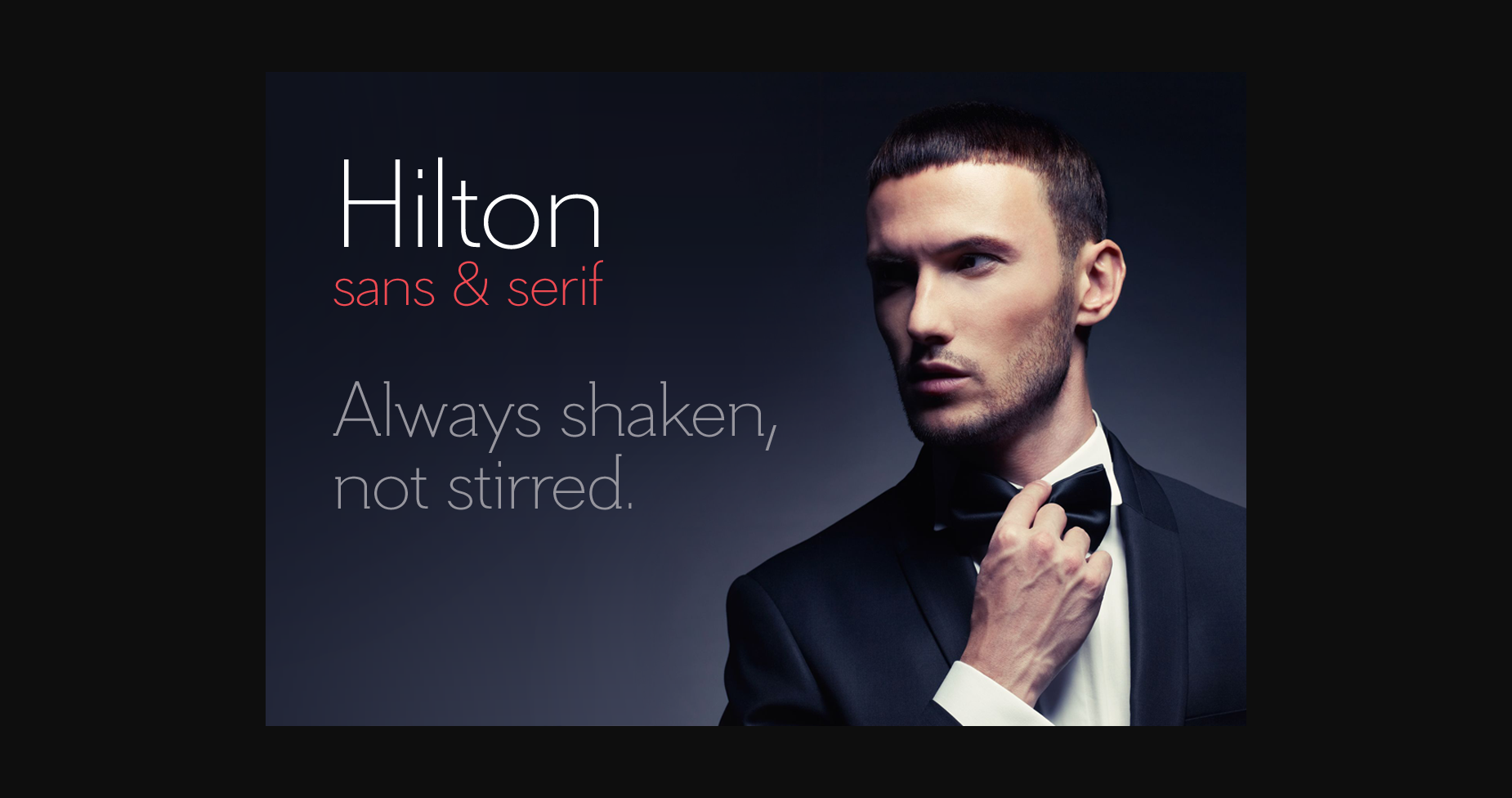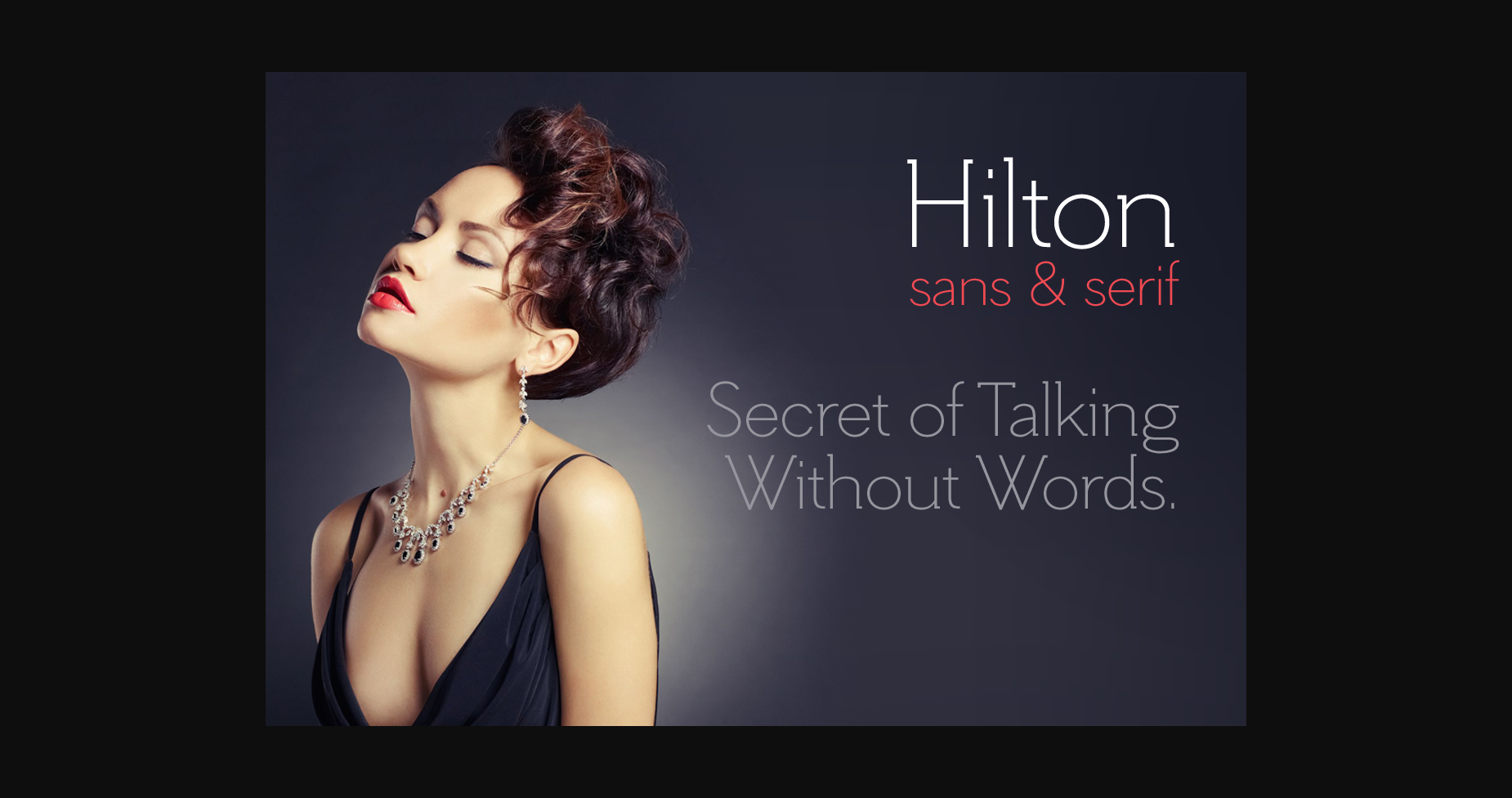
About Hilton Serif Font
Hilton Serif is a display serif font published by Juraj Chrastina.
There is something special about thin fonts. On one side is the sensitive, charming, and warm touch, on another side they are uncompromising, thoroughgoing. Here the contrast can’t hide the clear shapes.
Hilton Serif and Hilton Sans is a pair of highly legible, subtle, and elegant sans-serif and semi-serif display faces.
The quality of spacing and kerning is ensured by Igino Marini.
There is something special about thin fonts. On one side is the sensitive, charming, and warm touch, on another side they are uncompromising, thoroughgoing. Here the contrast can’t hide the clear shapes.
Hilton Serif and Hilton Sans is a pair of highly legible, subtle, and elegant sans-serif and semi-serif display faces.
The quality of spacing and kerning is ensured by Igino Marini.